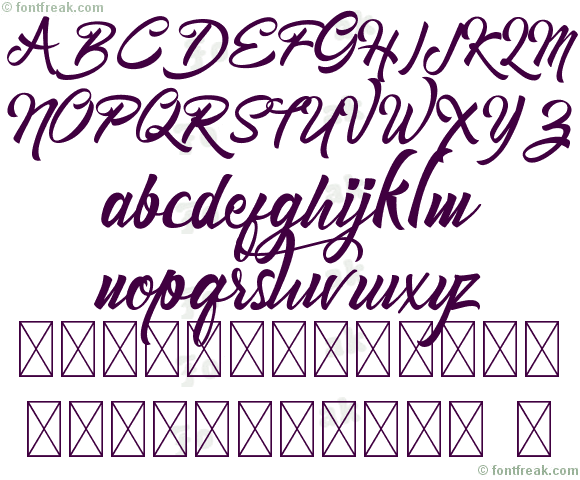
Mondena Demo
The Mondena Demo font, created by Burhan Afif, is a striking display typeface that embodies elegance and sophistication. As a script font, it features fluid, sweeping curves that give it a dynamic and artistic flair. The stroke weight varies throughout the characters, providing a sense of movement and grace, while the moderate contrast enhances legibility without sacrificing style. The generous spacing between letters adds to its airy feel, making it perfect for various design applications.
This font is particularly well-suited for wedding invitations, where its romantic style can set the perfect tone for a special occasion. Additionally, it shines in creating movie posters, allowing for a captivating title design that captures the essence of cinematic storytelling. Restaurant menus can also benefit from the Mondena Demo font, as its elegant appearance adds a touch of sophistication to any dining experience. Content creators and graphic designers will find it useful for branding projects, business cards, and promotional materials, where a distinctive look is essential.
Targeted towards graphic designers, small business owners, and content creators, the Mondena Demo font offers versatility and charm. Its unique aesthetic appeals to those looking to make a memorable impression in their designs. By incorporating this font into your projects, you can elevate your visual communication and engage your audience more effectively.
What sets the Mondena Demo font apart is its ability to blend artistic flair with practicality. It stands out in a crowded font marketplace, providing a refreshing option for anyone seeking to infuse their work with personality and style. Don’t miss the opportunity to enhance your designs with the Mondena Demo font free download, and let your creativity flow.